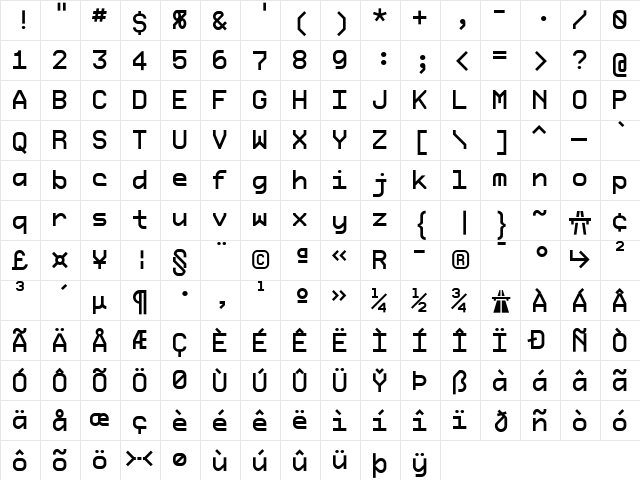
AutoScape Medium
| Foundry | Design: Cornel Windlin \ |
Design Context for AutoScape Typeface
AutoScape offers clean, dependable letterforms without strong stylistic allegiance, making it a practical choice for designers who need flexibility.